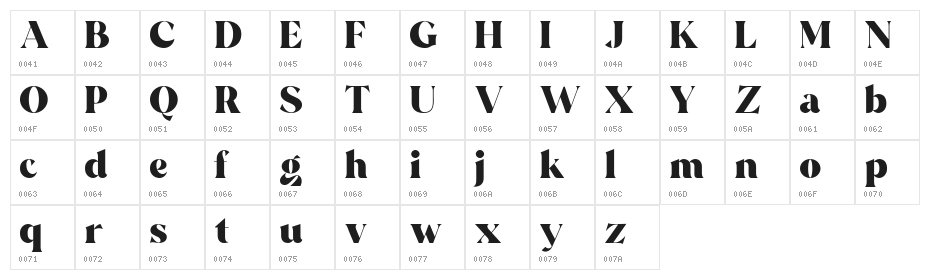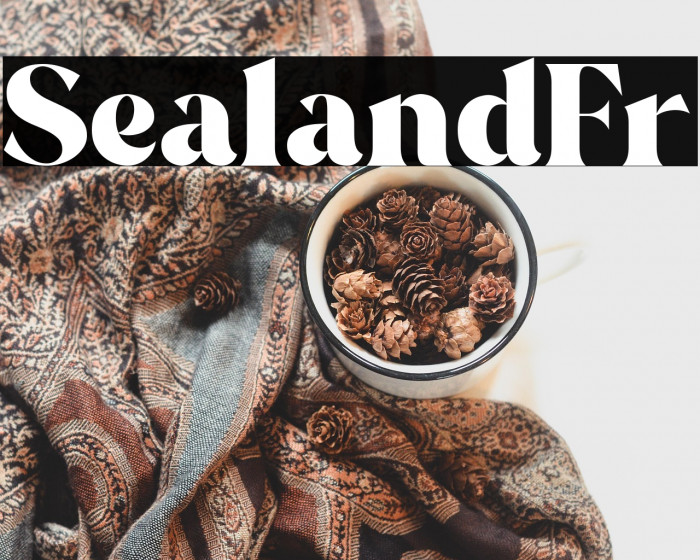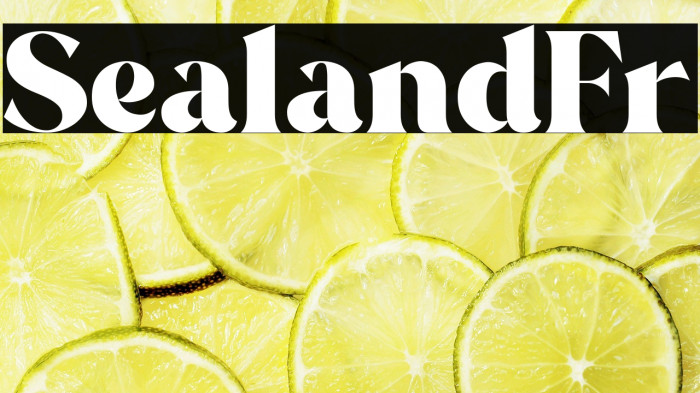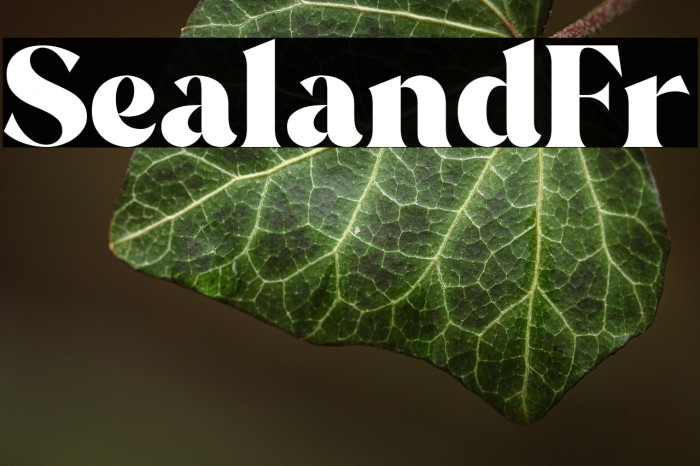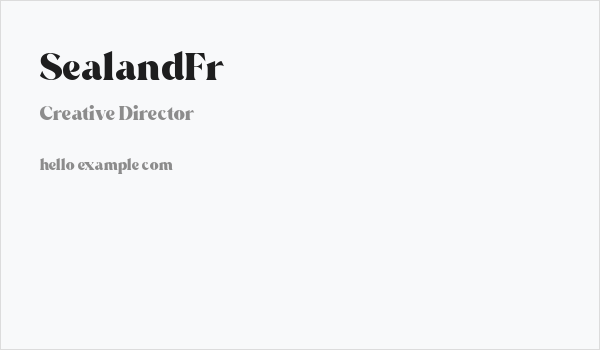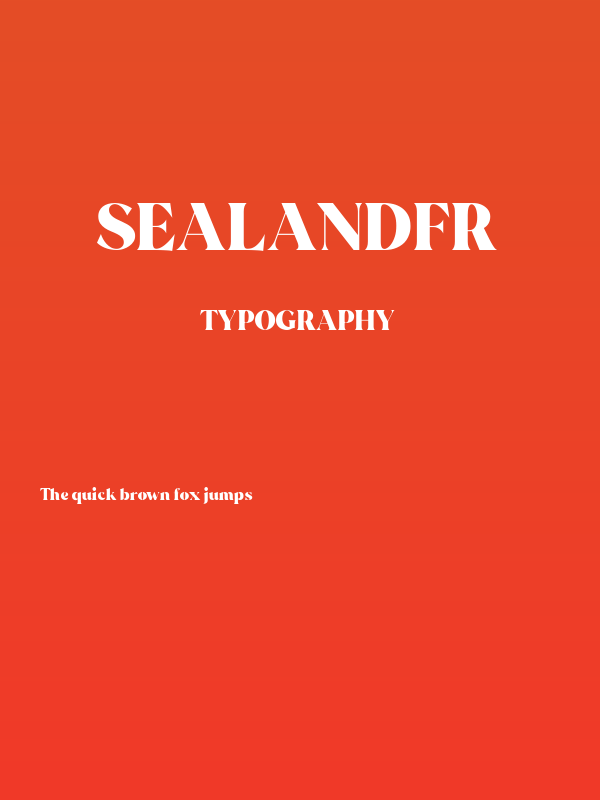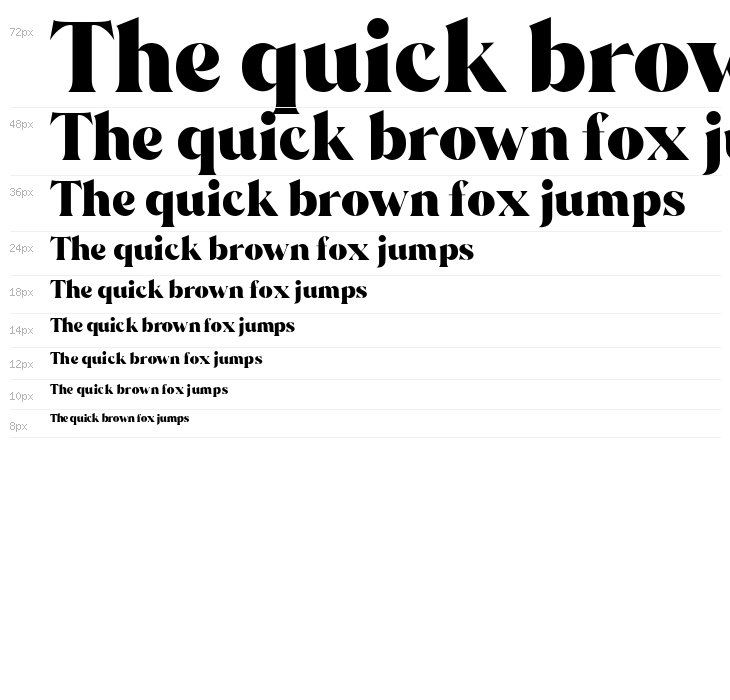
SealandFr Font
SealandFr Description
This font features a bold and striking design with high contrast between thick and thin strokes, giving it a dramatic and eye-catching appearance. The uppercase letters are particularly prominent, with sharp serifs and a strong vertical emphasis. The lowercase letters maintain a consistent style, with rounded forms that add a touch of elegance. The overall design is both modern and classic, making it versatile for various applications. The numerals and special characters are designed to match the boldness of the alphabet, ensuring a cohesive look across all text elements.
| Proposed Projects | Ideal for use in headlines, branding, posters, and editorial design where a strong visual impact is desired. |